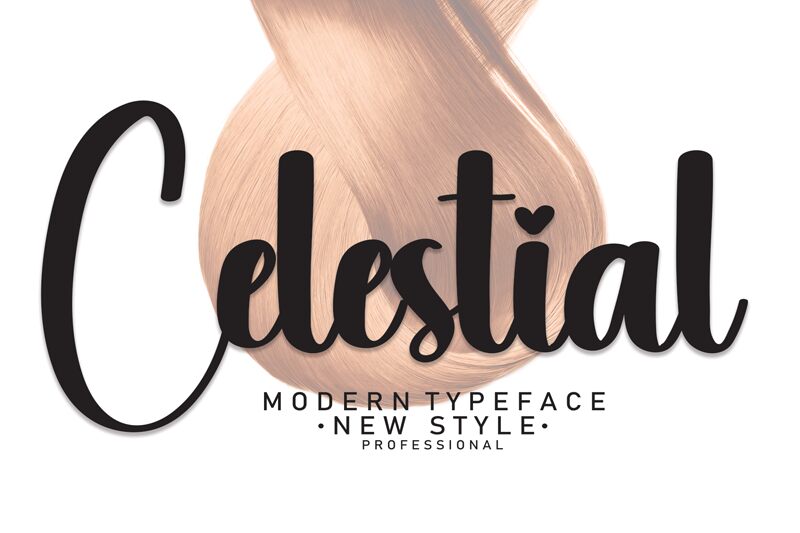
Celestial
Celestial, crafted by Scratchones, embodies the charm of personal touch with its handwritten style and semi-light weight. This font exudes an aesthetic appeal that is both modern and timeless, making it a versatile choice for various creative endeavors. The fluidity of its characters suggests a sense of elegance and individuality, perfect for invitations, branding, and editorial design where a touch of human flair is desired. Celestial's distinctively casual yet sophisticated air ensures that your project will stand out with grace and style.